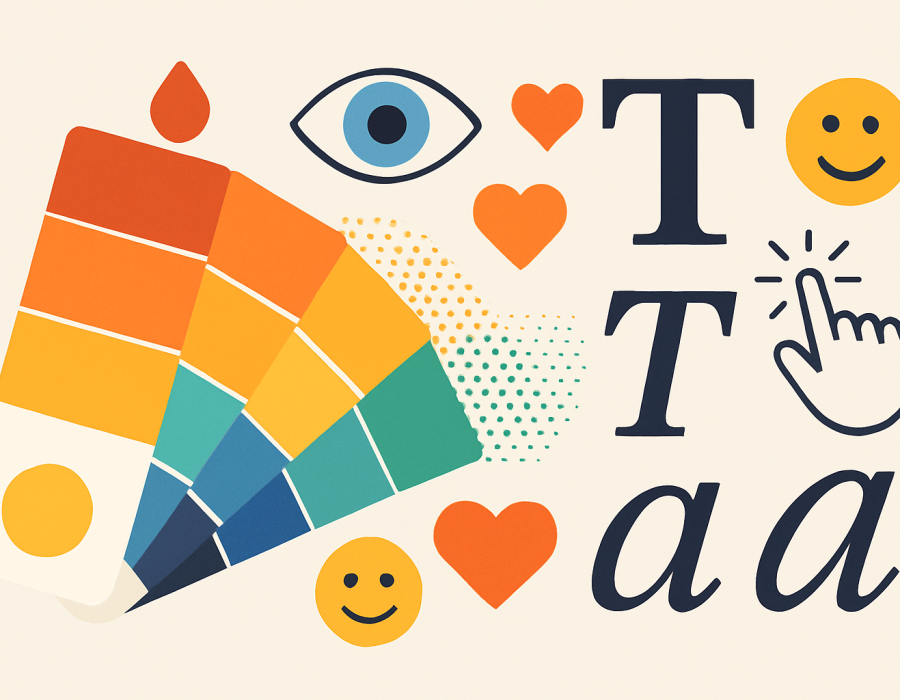
In today’s digital-first world, websites are not just online brochures; they are the face of a brand, its identity, and its primary medium of communication. While content and functionality are critical, design psychology—especially the use of colors and fonts—plays a pivotal role in determining how users perceive, engage, and convert on your website.
In this article, we’ll explore the fascinating psychology behind colors and fonts in web design and how they shape user behavior and business outcomes.
Why Colors and Fonts Matter in Web Design
Your website is often the first interaction potential customers have with your brand. Studies show that users form an impression of a website within 0.05 seconds, and much of that judgment is based on colors, layout, and typography.
- Colors influence emotions, trust, and decision-making.
- Fonts define readability, tone, and the brand’s personality.
When these two elements work together in harmony, they create a consistent and powerful user experience.
The Psychology of Colors in Web Design
Colors are not just aesthetic choices; they trigger psychological responses. Let’s break it down:
Warm Colors
Warm colors are energetic, bold, and engaging.
- Red: Associated with urgency, passion, and excitement. Brands use it for call-to-action buttons and sales promotions.
- Orange: Symbolizes enthusiasm and creativity. It’s perfect for fun, youthful, and innovative brands.
- Yellow: A color of optimism and happiness. It grabs attention but can be overwhelming if overused.
Cool Colors
Cool tones are calming, trustworthy, and professional.
- Blue: The most widely used color in web design. It represents trust, professionalism, and stability. It’s why banks and tech companies rely heavily on it.
- Green: A symbol of growth, harmony, and nature. It’s often used in health, eco-friendly, and finance industries.
- Purple: Represents luxury, creativity, and imagination. High-end brands use it to signify exclusivity.
Neutral Colors
Neutral shades provide balance and sophistication.
- Black: Conveys power, elegance, and authority. Luxury brands thrive on it.
- White: A color of simplicity, clarity, and modernity. White space improves readability and directs focus.
- Gray: Balanced and subtle. It’s often used as a supportive background shade.
By selecting the right combination, you can align your website design with your brand’s values and customer psychology.
The Psychology of Fonts in Web Design
Typography is more than choosing “pretty” fonts. Each font style communicates a distinct personality.
Serif Fonts – Trust and Tradition
Serif fonts, like Times New Roman, are classic and formal. They signal tradition, authority, and reliability. They work well for law firms, financial institutions, and academic websites.
Sans Serif Fonts – Modern and Clean
Sans serif fonts, like Helvetica and Arial, are sleek, simple, and modern. They improve readability on screens and are widely used by tech and contemporary brands.
Script Fonts – Creativity and Elegance
Script fonts mimic handwriting, offering elegance and creativity. They’re perfect for lifestyle brands, fashion websites, and personal blogs.
Display Fonts – Bold and Distinct
Display fonts are decorative and attention-grabbing. They’re great for headings but not suitable for body text due to readability issues.
How Colors and Fonts Influence User Behavior
Colors and fonts influence the subconscious mind of users in the following ways:
- First Impressions: Within seconds, colors and fonts determine whether users feel your brand is trustworthy, professional, or fun.
- Emotional Connection: Colors trigger emotions, while fonts set the tone. Together, they create a bond between brand and customer.
- Readability and User Experience: Poor font selection or low contrast colors make users leave quickly.
- Conversions: Strategic use of colors (like red for urgency) and fonts (bold headlines) can drive users to take action.
Examples of Brands Using Colors and Fonts Effectively
- Coca-Cola: Uses red to spark energy and bold fonts to leave a strong impression.
- Facebook: Blue and clean sans serif fonts convey trust and professionalism.
- Apple: Minimal fonts paired with white and gray tones highlight simplicity and innovation.
These brands understand design psychology and apply it consistently across their platforms.
Mistakes to Avoid When Choosing Colors and Fonts
- Overusing too many colors that confuse users.
- Using decorative fonts for body text, reducing readability.
- Poor contrast between text and background.
By making thoughtful choices in colors and typography, your website can become more than just a digital space—it can be a persuasive storyteller that resonates with your audience.